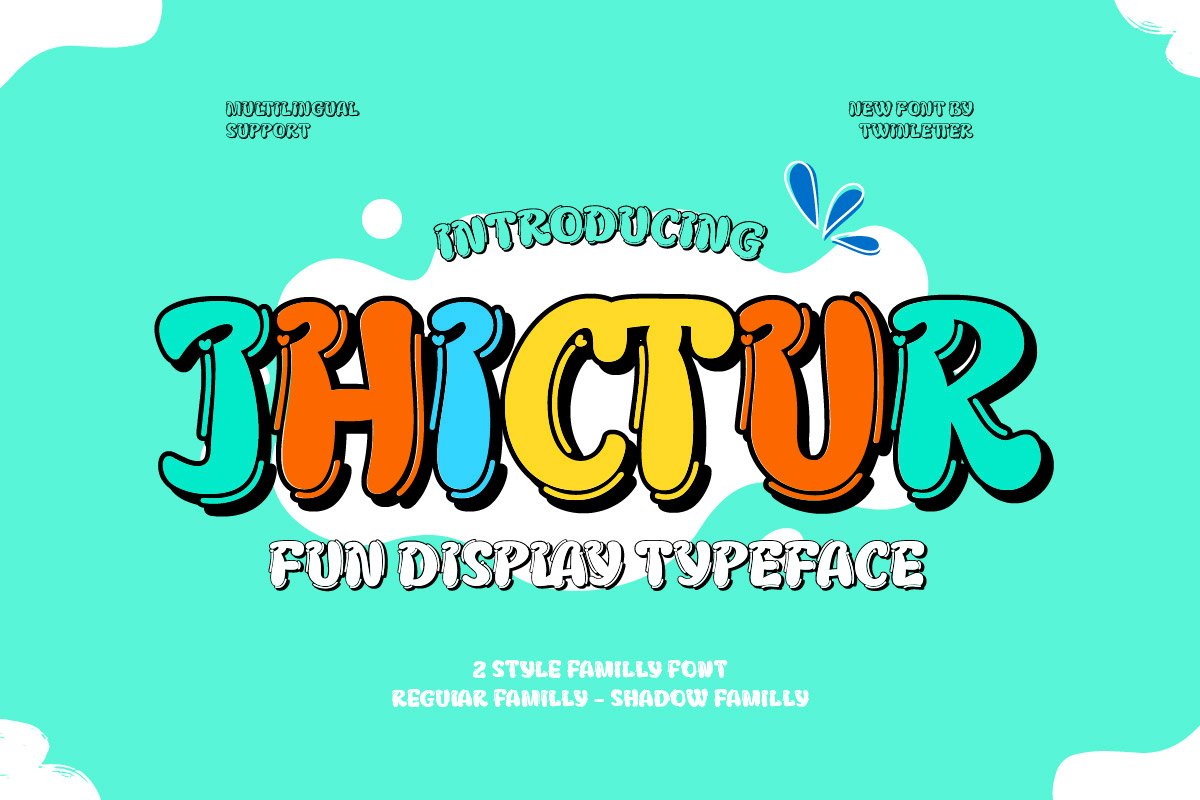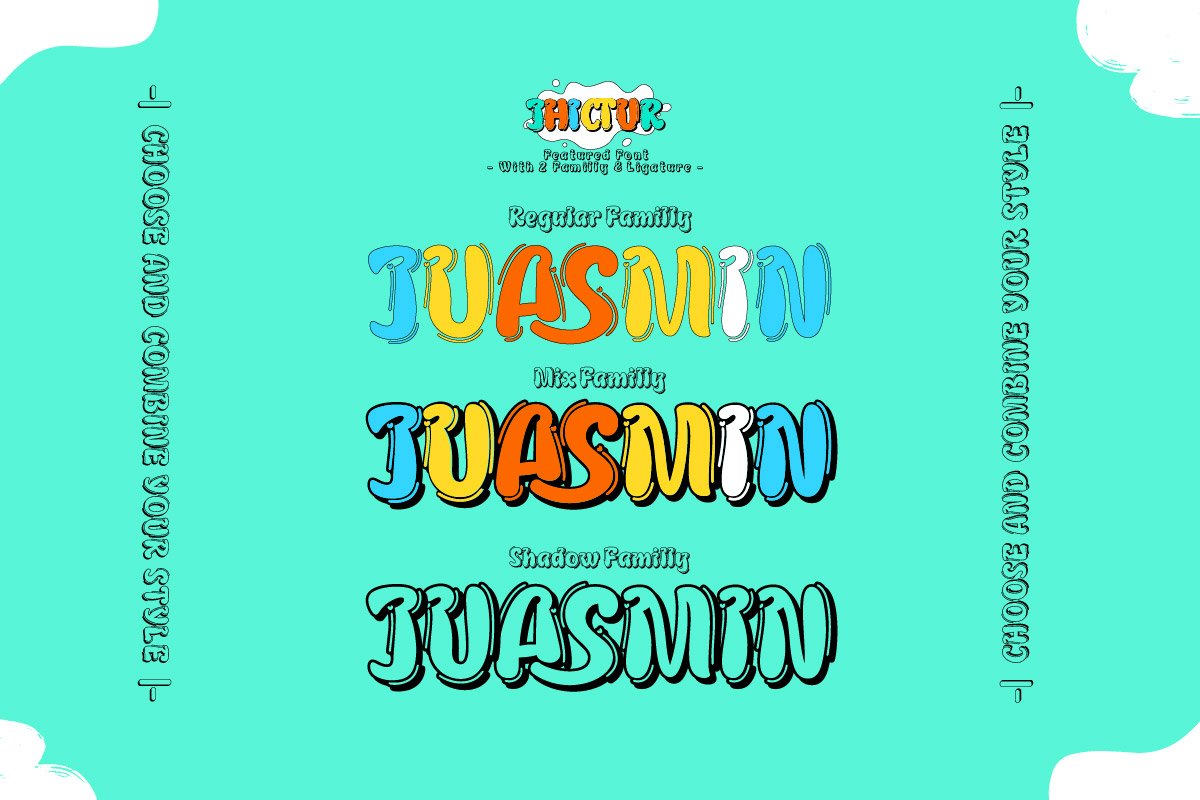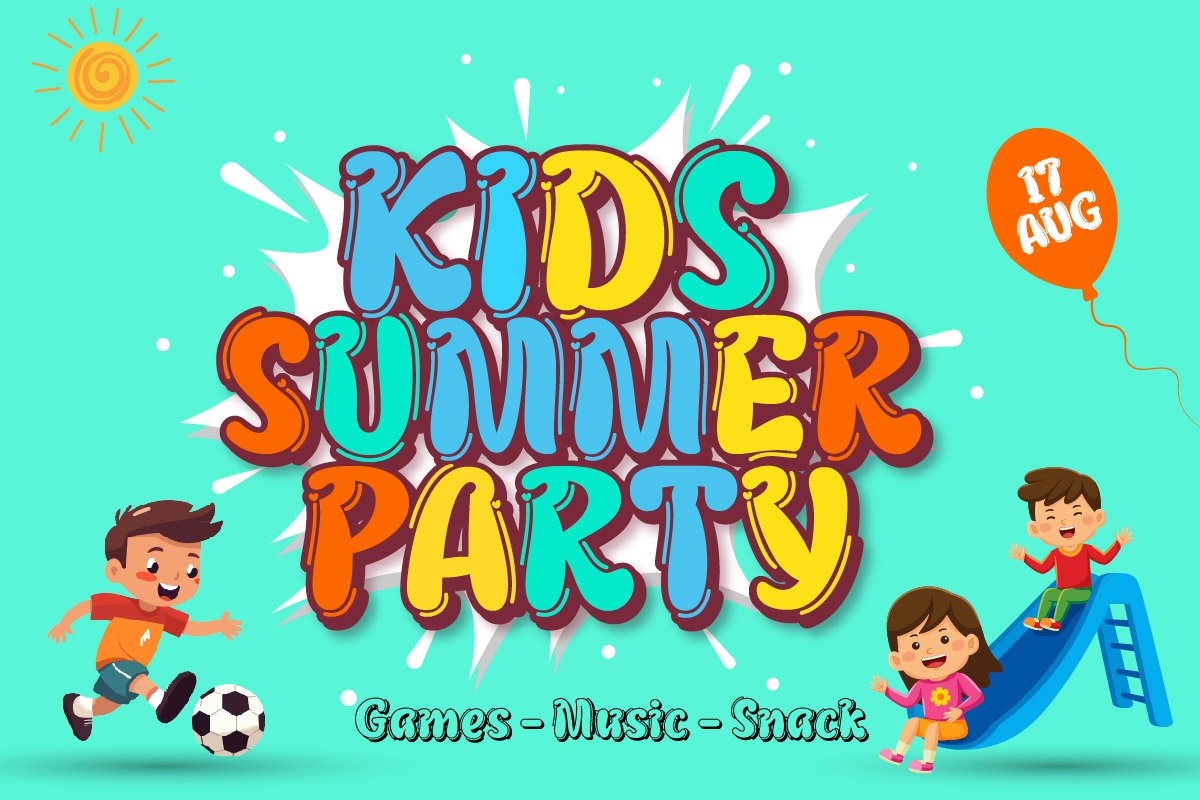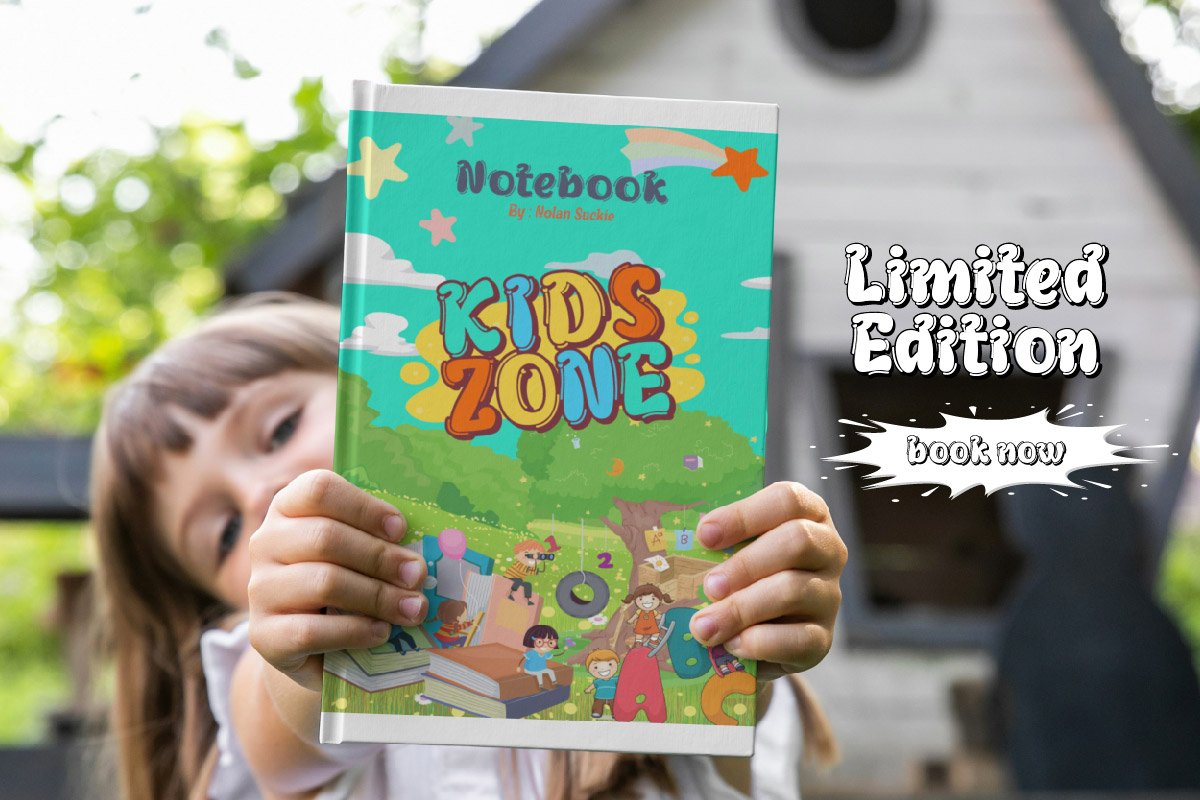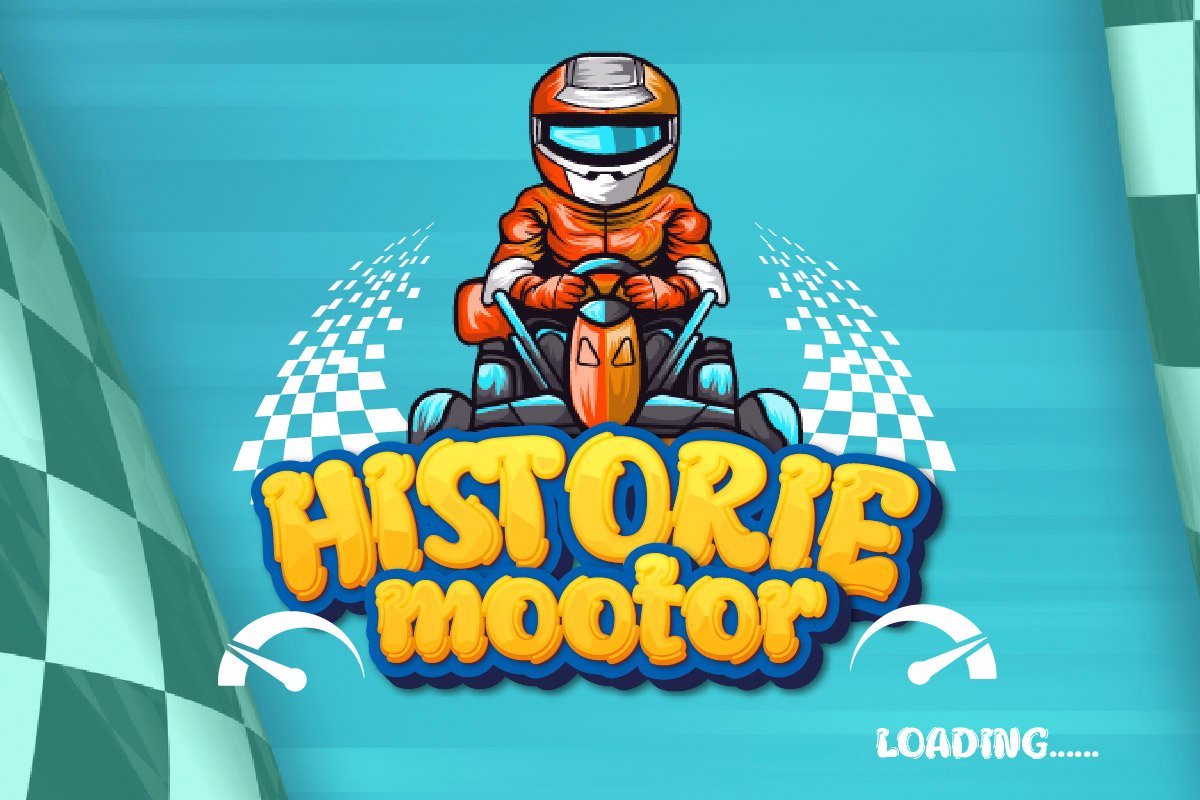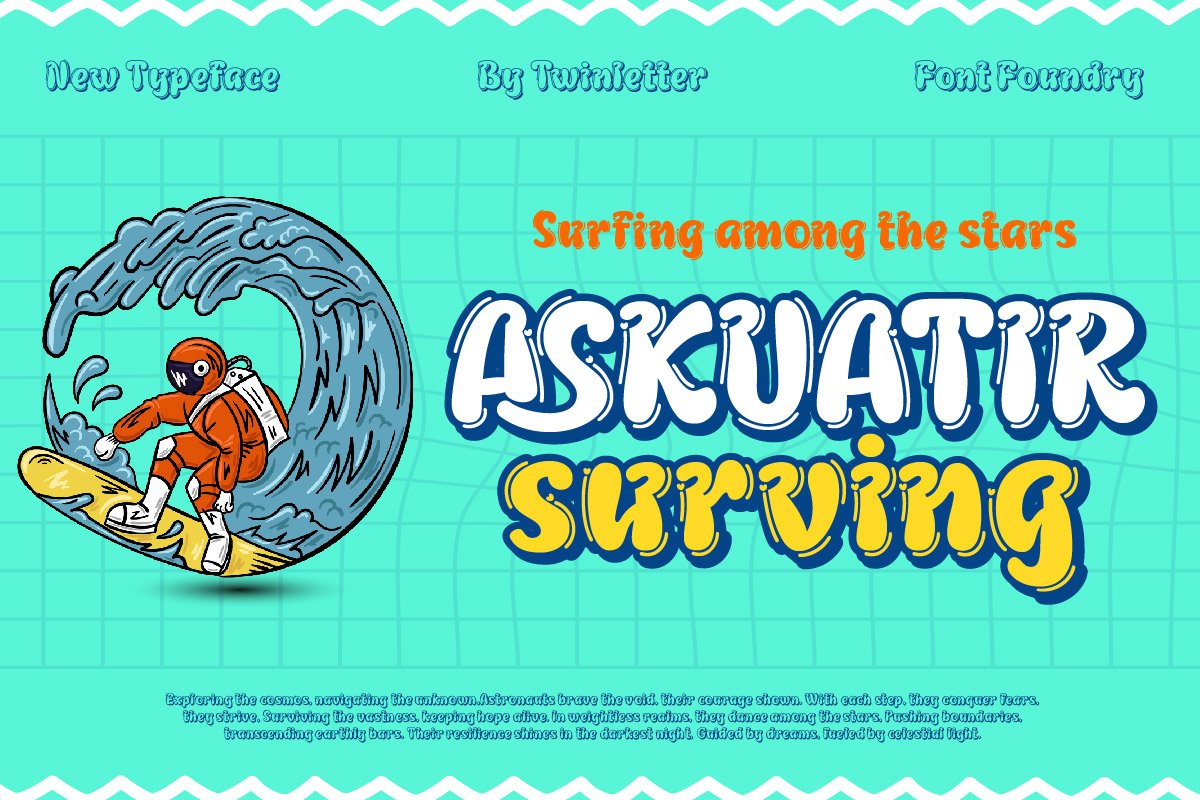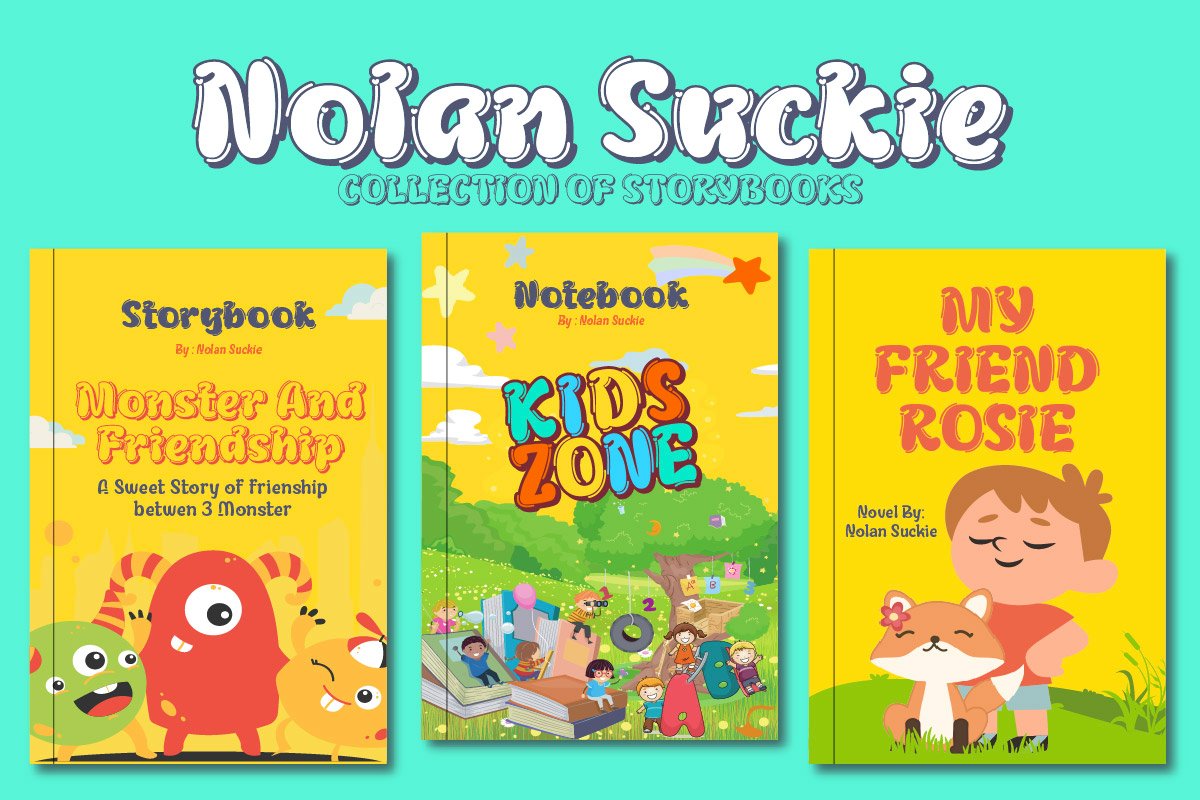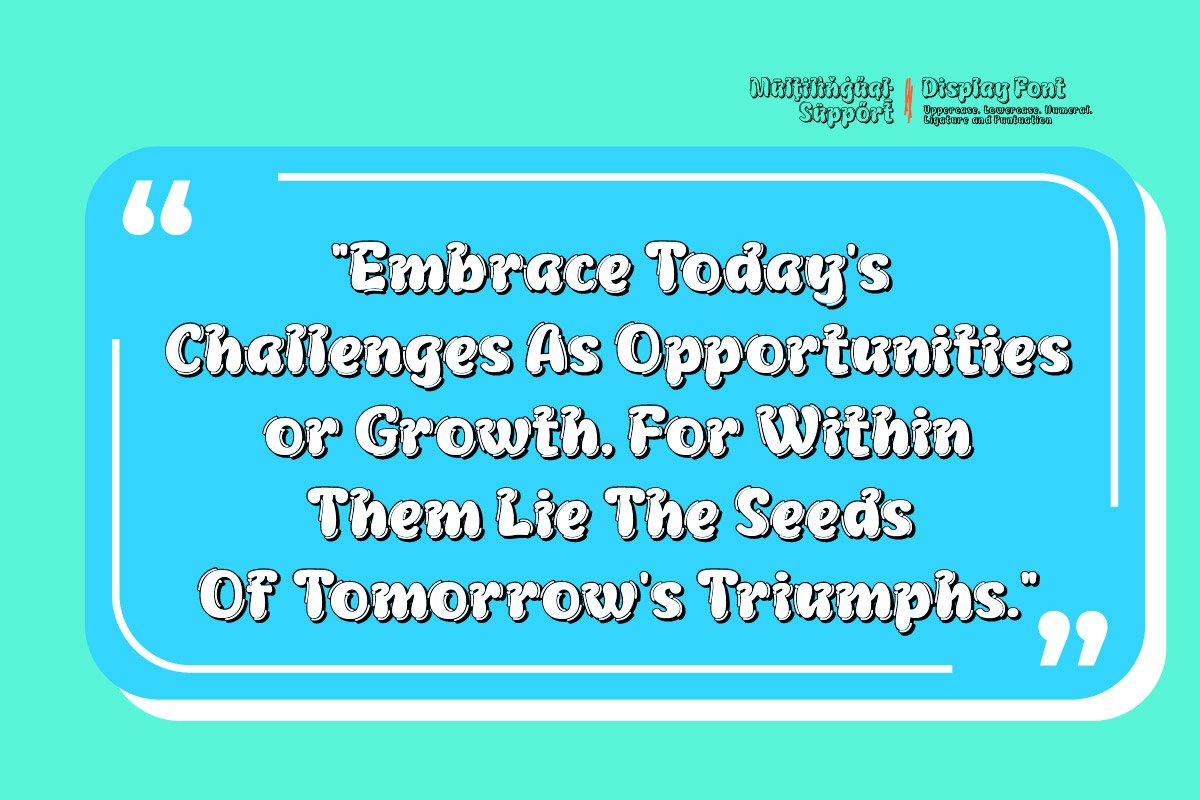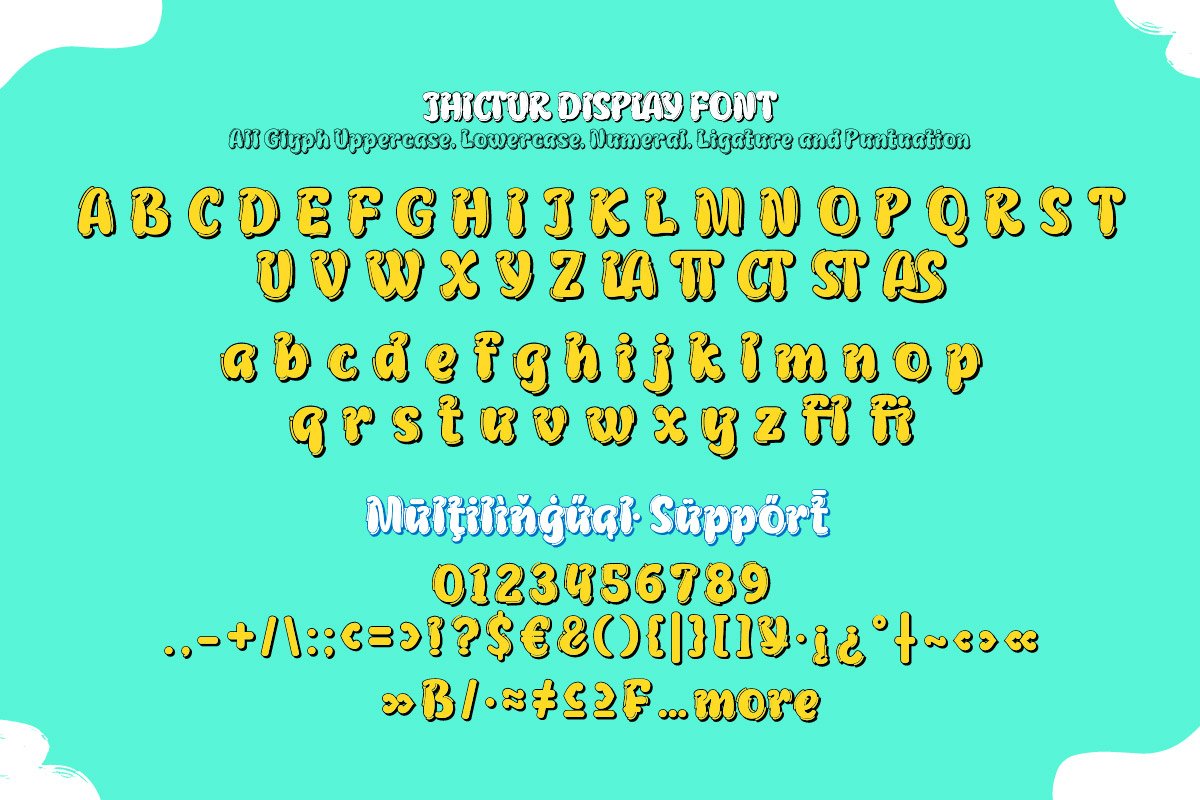
5. Jhictur – Playful Display Font
Jhictur – Playful Display Font
Meet Jhictur, your go-to font for injecting a burst of joy and playfulness into your design projects. This Playful Display Font is brimming with energy and personality, with each letter dancing across the canvas in a delightful display of creativity.
Whether you’re creating greeting cards, posters, or children’s book illustrations, Jhictur adds a splash of color and charm to every design. Its whimsical vibe and dynamic appearance make it perfect for capturing attention and sparking excitement. Incorporate Jhictur into your designs to infuse them with a sense of fun and lightheartedness that resonates with your audience.
Product image of Jhictur – Playful Display Font